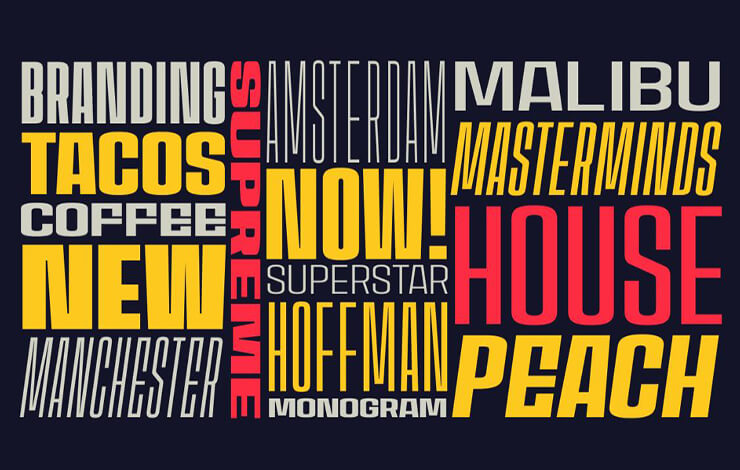
House Sans Font is a sans-serif font family designed by Dan Jones and published by TypeUnion. With 100 different styles to choose from, it offers a wide range of options for designers and typographers.
This modern sans-serif typeface is perfect for branding, editorial design, and other graphic design projects.
One of the standout features of House Sans is its extensive character set, which includes support for many different languages and scripts. This makes it a great choice for international projects or for communicating with diverse audiences.
House Sans Font has a clean and modern aesthetic making it a popular choice among designers, while its extensive character set and wide range of styles make it a practical choice for a variety of applications.